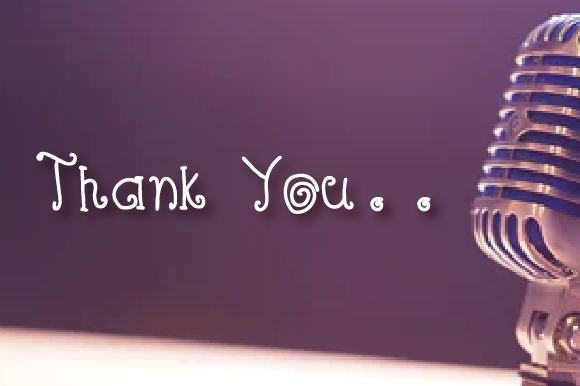
Curly Font
About Curly Font
Curly: Embrace the Flowing Elegance of a Timeless Handwritten Font
Introducing Curly, a font that gracefully embodies flowing elegance in every stroke. Its handwritten style is described by an elegant touch, making it a perfect choice for your favorite projects. Prepare to be captivated by its incredibly distinct allure as it infuses your creations with a touch of timeless beauty, allowing you to craft spectacular designs that leave a lasting impression.
The allure of Curly lies in its seamless flow and graceful touch. Each letter dances with effortless beauty, creating an enchanting rhythm that captures the essence of elegance.
Designing with Curly is a delightful experience. Whether you’re creating exquisite wedding invitations, designing heartfelt love letters, or crafting artistic prints, this font elevates your work to new levels of refinement.
Expressing sentiments becomes an art form with Curly. Its flowing nature breathes life into your words, making them resonate with emotions that touch the heart.
Gorgeous designs come to life with Curly’s timeless style. Whether you’re creating elegant logos, crafting social media graphics, or designing book covers, this font adds a touch of sophistication that captivates the eye.
For businesses seeking a brand identity that stands out, Curly is the answer. Its elegant and distinct appearance communicates a sense of creativity and professionalism, making it a versatile choice for various industries.
And when it comes to unleashing your creativity, Curly won’t disappoint. Its timeless charm allows it to complement a wide array of design concepts, from classic and refined to modern and chic.
In conclusion, Curly is more than just a font; it’s a flowing masterpiece of elegance. Embrace its distinct and timeless charm, and let it become the muse for your most cherished projects. Whether you’re celebrating love, expressing gratitude, or building a captivating brand identity, Curly will be your loyal companion, adding a touch of sophistication and grace. Allow this font to unlock the full potential of your creativity and watch as your designs come alive with the flowing elegance of Curly. Fall in love with its timeless beauty, and let it be the guiding light that leads you to create truly spectacular designs that stand the test of time.